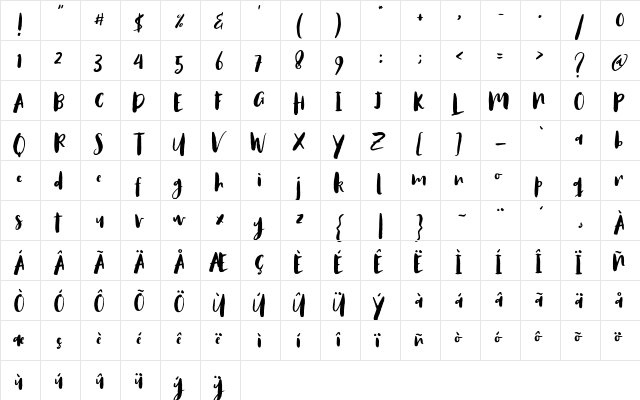
Antums Brush Regular
Design Context for Antums Brush Typeface
Antums Brush flows with the natural rhythm of handwritten lettering, making it ideal for designs that call for warmth and personal expression.
Font Pairing: Combine Antums Brush with a simple geometric sans for maximum contrast — the tension between flowing curves and clean structure is a classic typographic pairing.
Pro Tip: Use Antums Brush for short runs of text — names, titles, or taglines. Extended body copy in script faces tires the eye quickly.